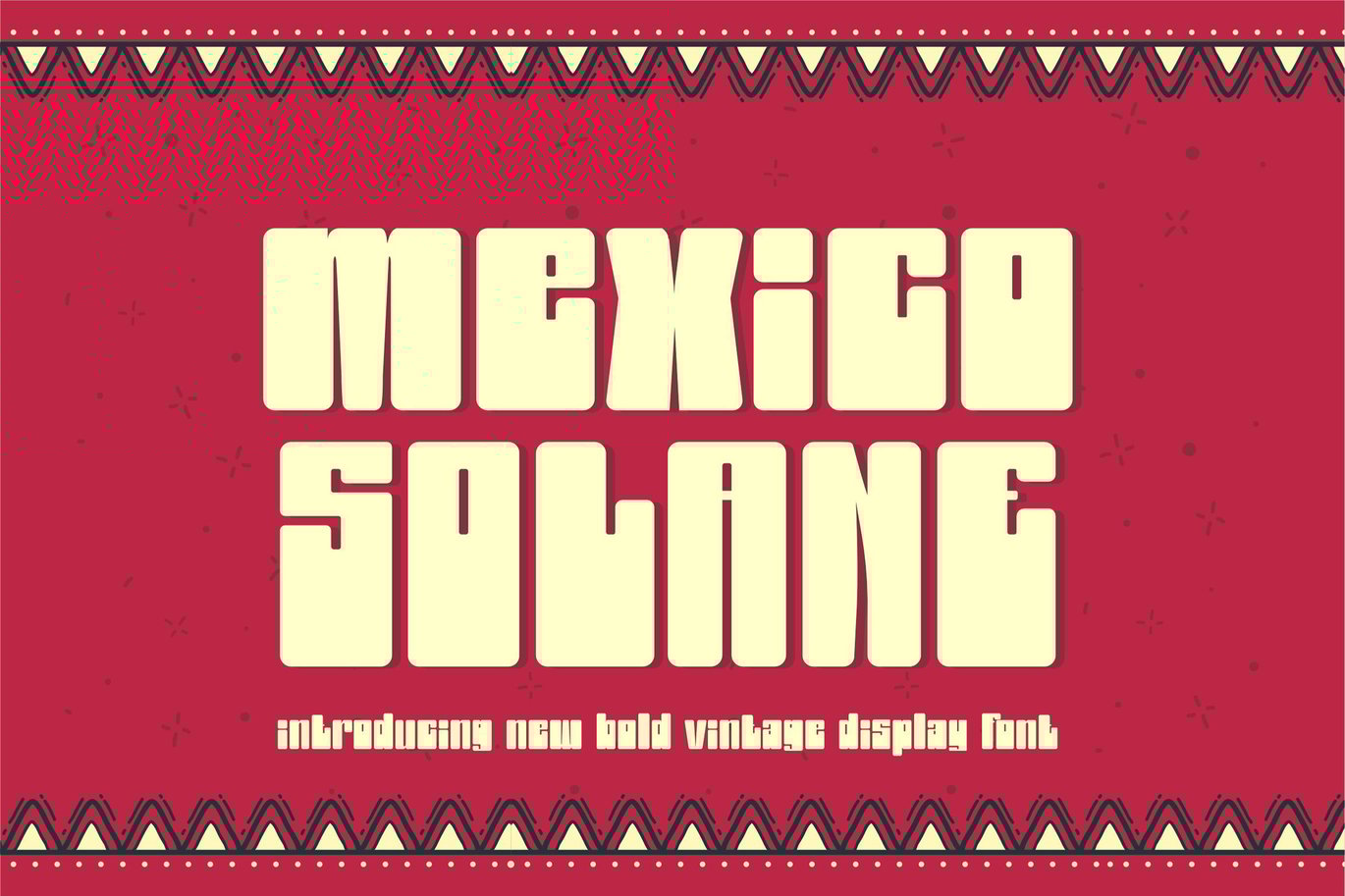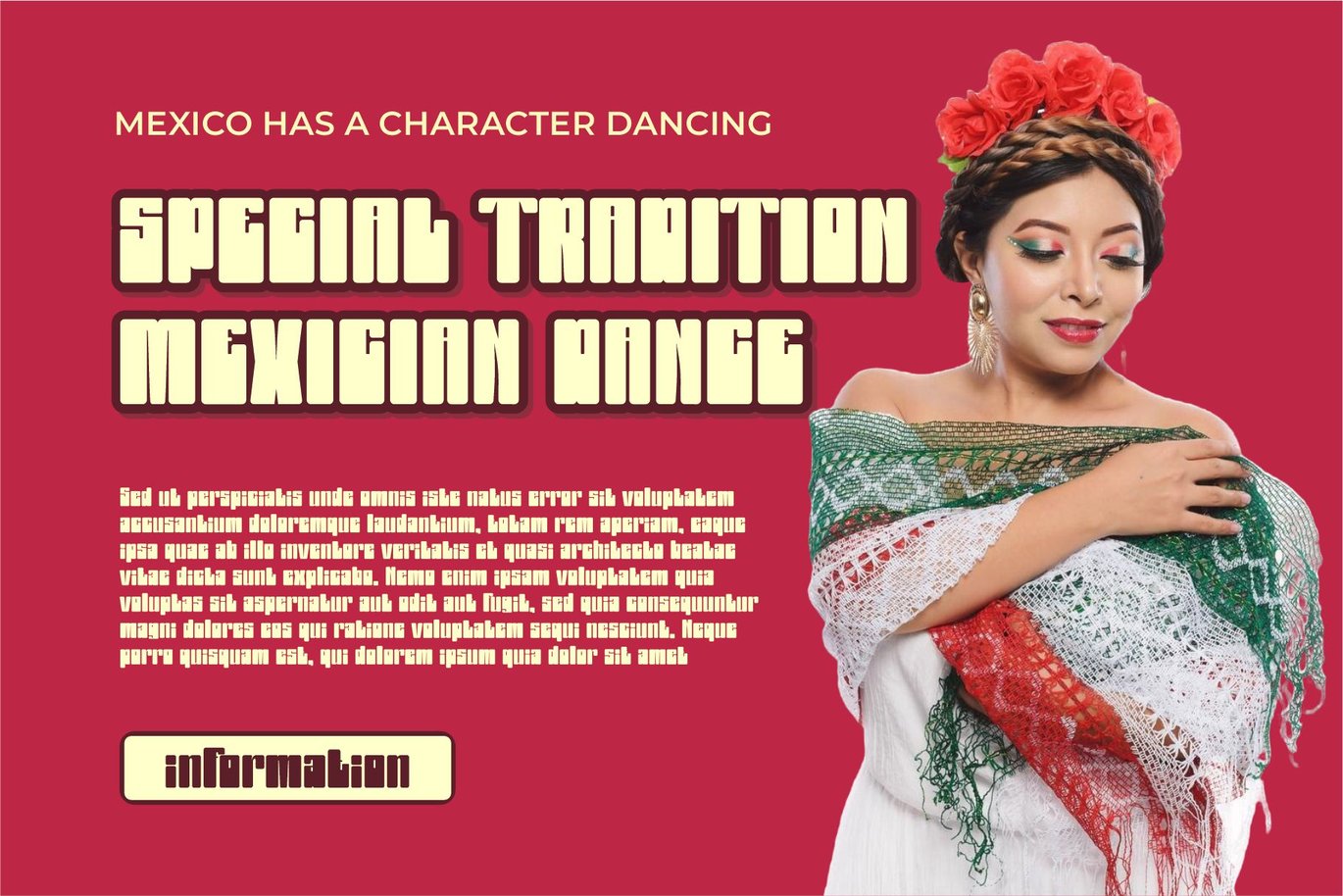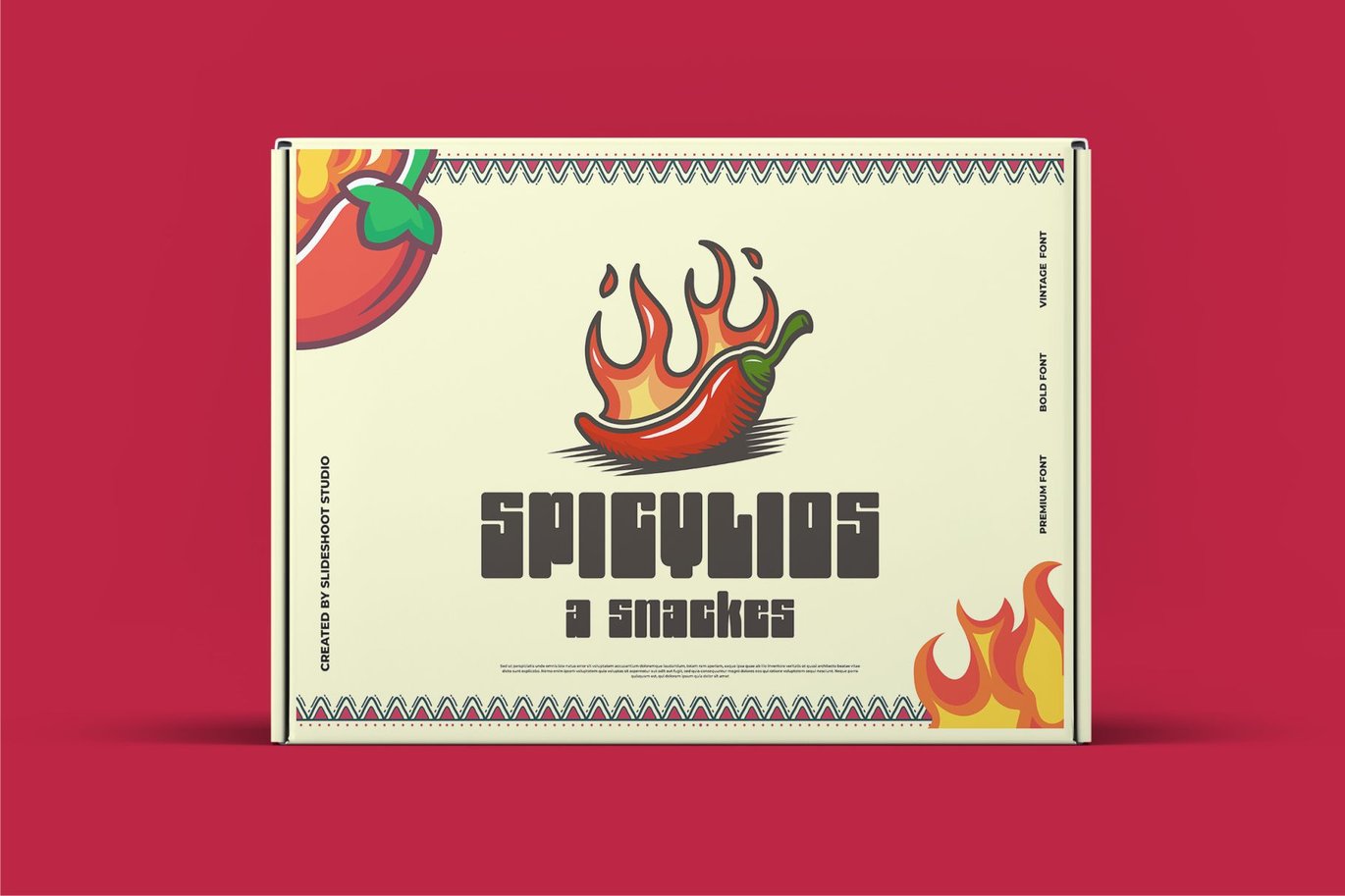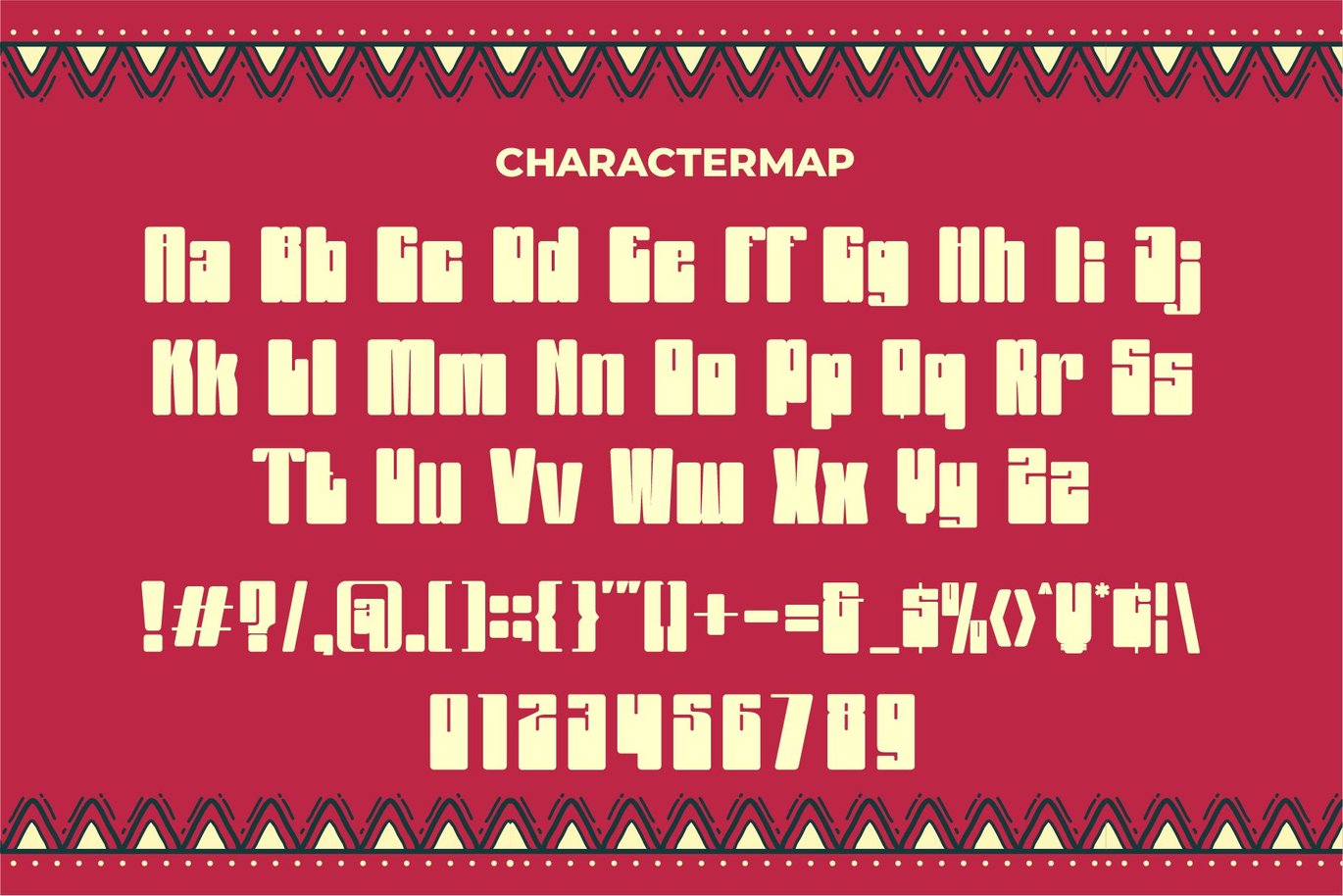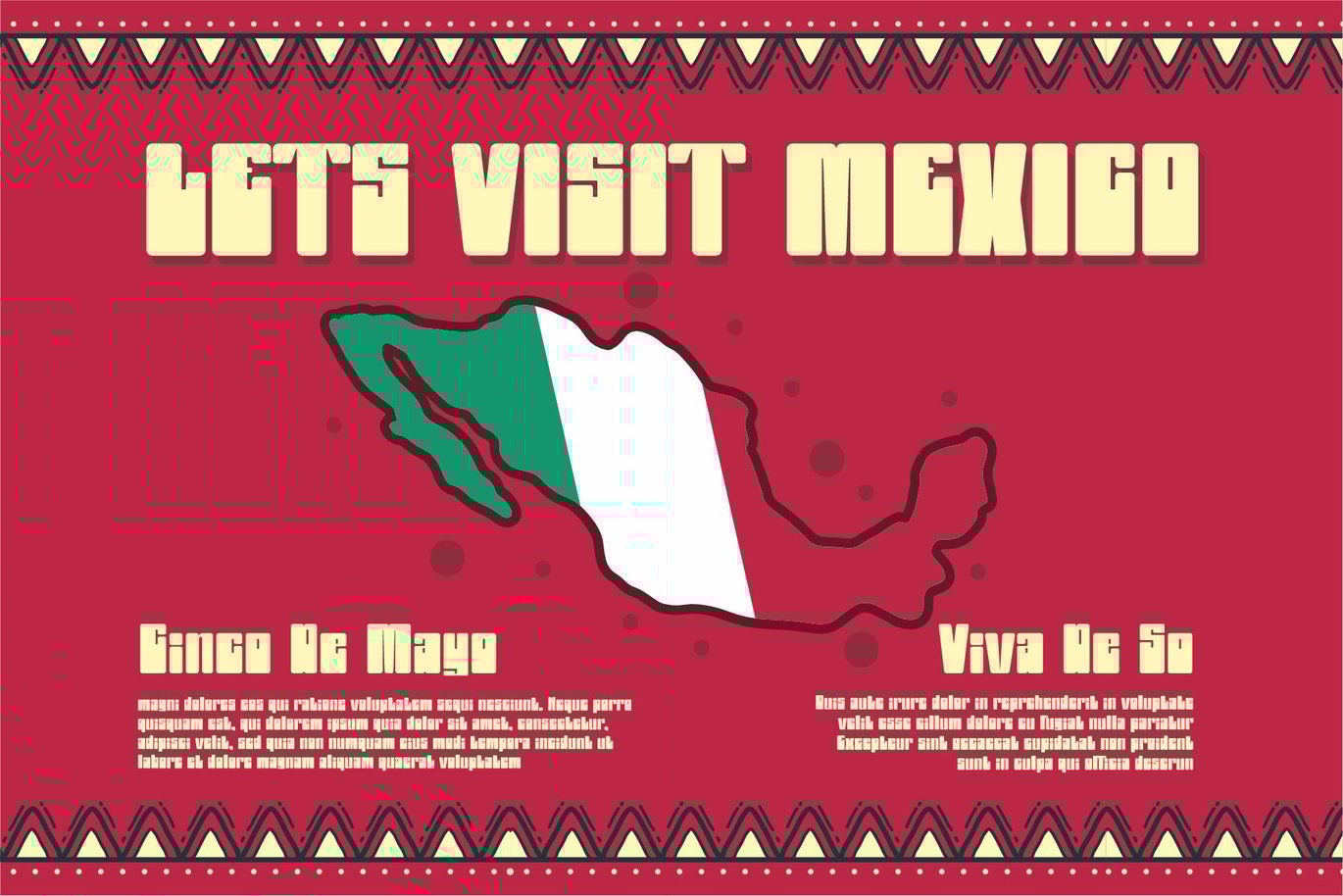
Mexico Solano || Vintage Display Font
Introducing Mexico Solano New Bold Unique Display Font is a modern, trendy, bouncy and cute display font. It has a unique character with wood theme. It is perfect to be combined with invitation card designs, company logos, movie titles, movie names, business cards, book titles, brand names and various other designs.